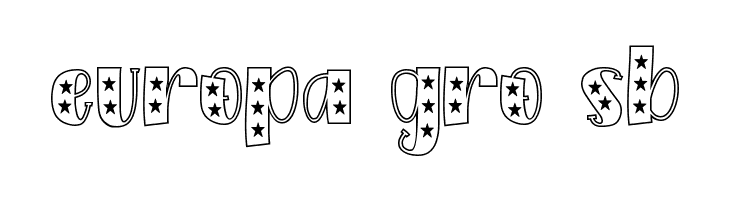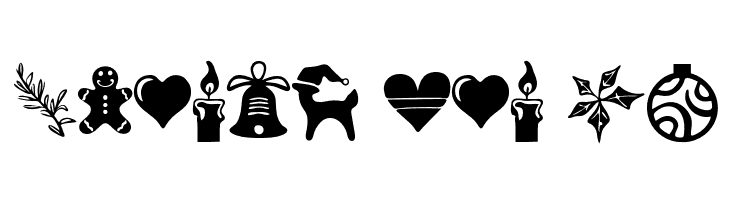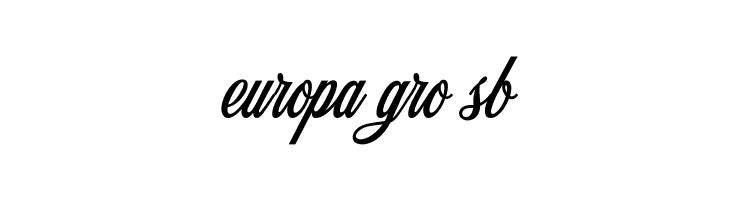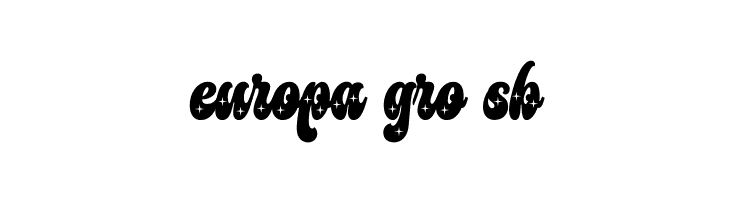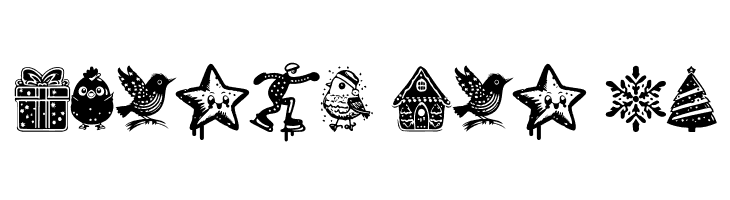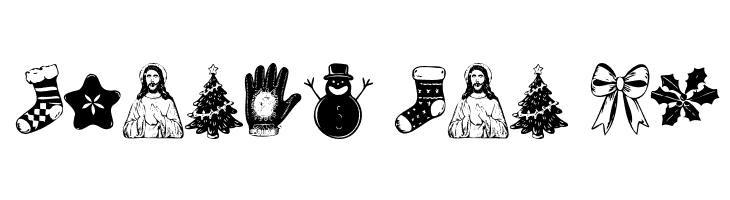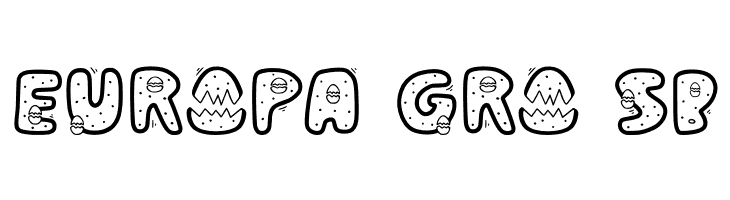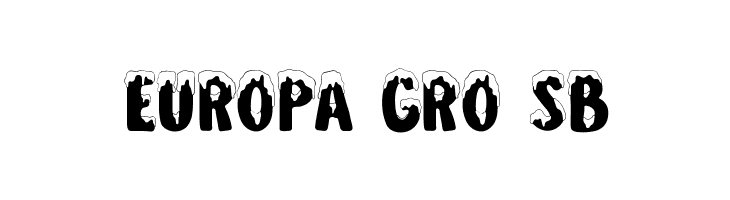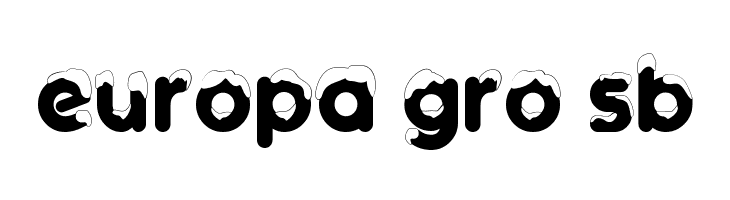
A playful, star-filled decorative font perfect for festive projects.
A festive collection of winter-themed symbols and icons in a playful, decorative style.
A festive decorative font featuring charming Christmas-themed symbols.
An elegant, flowing script font with intricate loops and flourishes.
A bold, decorative font with star embellishments, perfect for festive themes.
A decorative font featuring festive Christmas-themed icons with bold outlines.
Playful, bold Christmas-themed decorative symbol set.
A playful, decorative font with festive patterns and a hand-drawn feel.
A bold, festive font with a snowy, frosted design on each character.
A playful, snow-topped font ideal for festive and winter-themed projects.